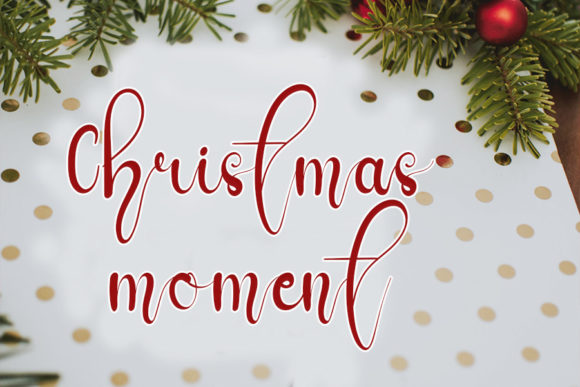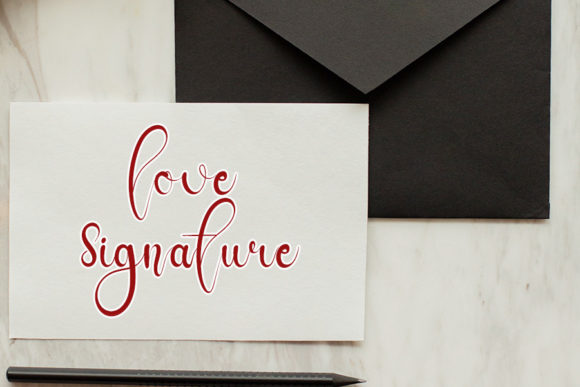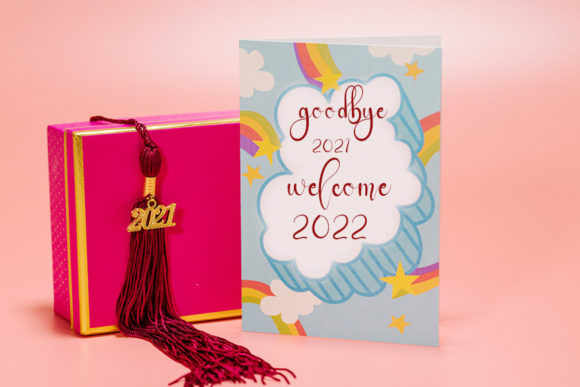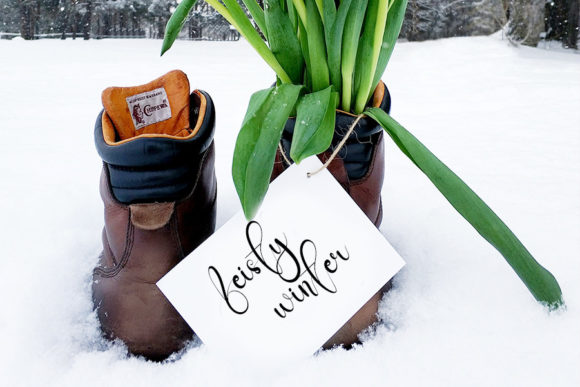
The Power of Blind Love: A Playful and Smart-Looking Handwritten Font
Have you ever been in the middle of a design project, and suddenly, you realize that the font you’ve chosen just isn’t working? I recall a particularly frustrating experience when I was working on a branding project for a client who wanted a playful, yet sophisticated look. I spent hours scouring the internet for the perfect font, but nothing seemed quite right. That was until I stumbled upon Blind Love, a beautiful handwritten font that completely transformed my design.
A Personal Review: What I Love About Blind Love
Blind Love is a game-changer for designers, crafters, and creative hobbyists alike. Here’s what I love about it:
- ✨ Unique and beautiful touches on every letter, making your design come alive!
- ✅ Playful and smart-looking, perfect for creating eye-catching logos, branding, and quotes.
- 💫 Highly versatile, suitable for a wide range of design projects, from digital to print.
While Blind Love is an amazing font, there are a few things to keep in mind:
- ⚠️ Some letters may require manual kerning to achieve optimal spacing.
- 🤔 The font’s playful nature may not be suitable for very formal or corporate designs.
The Story Behind Blind Love
Blind Love was designed with the intention of creating a font that’s both playful and sophisticated. The designer aimed to craft a font that would add a touch of personality to any design project, while still being versatile enough to work in a variety of contexts. The result is a font that’s perfect for creating eye-catching logos, branding, and quotes.
| What makes Blind Love unique? | Blind Love’s unique and beautiful touches on every letter make it stand out from other fonts. |
| Does Blind Love support OpenType features? | Yes, Blind Love supports OpenType features, including stylistic alternates and glyphs. |